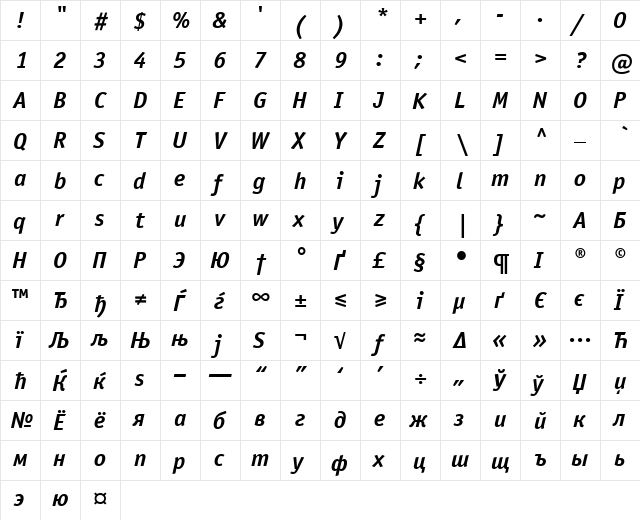
OfficinaSansMACCTT BoldItalic Font Preview
Design Context for OfficinaSansMACCTT Typeface
OfficinaSansMACCTT is a composed and adaptable typeface that performs quietly and consistently across a wide range of design contexts. The dynamic lean of this cut emphasises speed and emphasis in any layout. The heavy weight commands attention and anchors typographic hierarchies.
Pro Tip: Try OfficinaSansMACCTT for annotation and caption copy alongside an upright companion — the contrast in angle creates a dynamic but ordered typographic system.